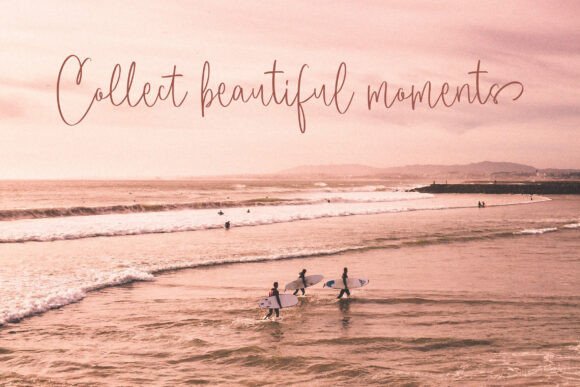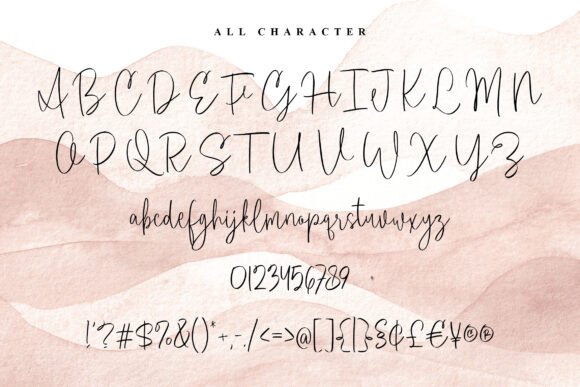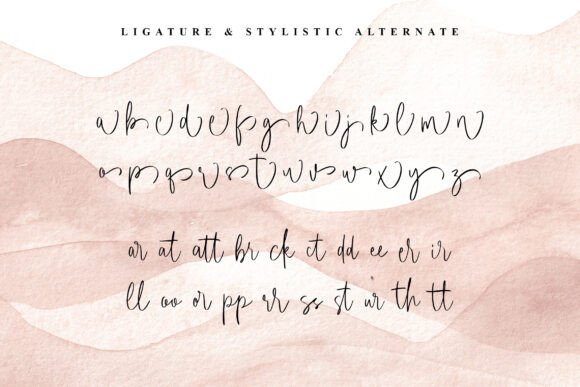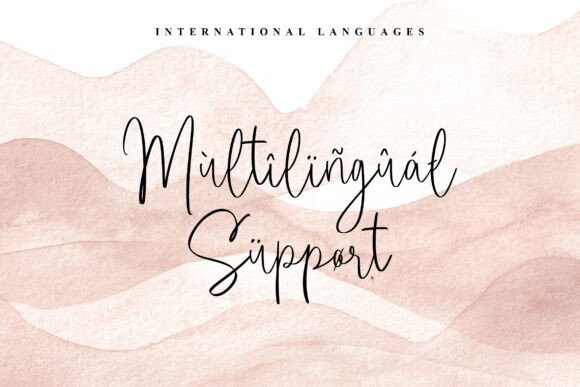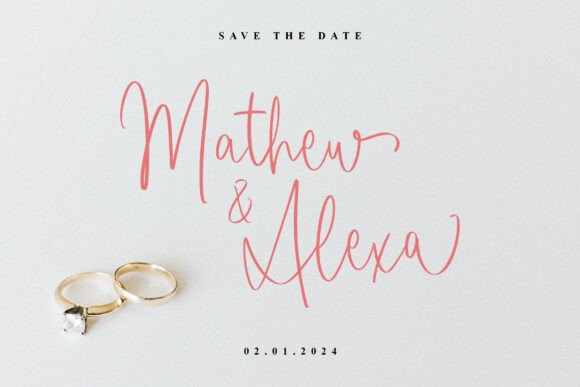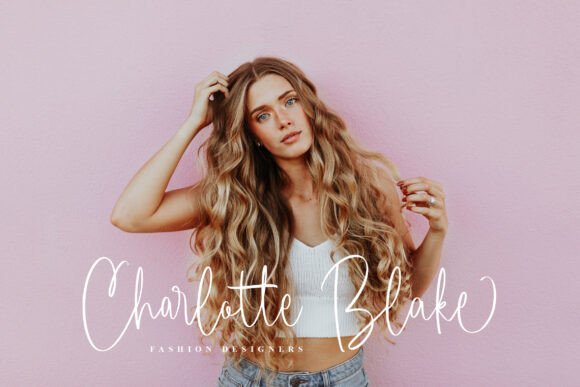
Introduction to Forhampton Font
Introducing Forhampton, the epitome of authentic, handwritten font elegance.
Crafted with a distinct brush style, Forhampton takes your designs to a whole new level, offering a tangible touch of natural, handwritten beauty To ensure a seamless design experience, Forhampton is well-equipped with ligatures and alternates, and impressively supports 68++ multilingual options.
Key Features of Forhampton Font
Why Choose Forhampton Font?
Forhampton Font offers exceptional quality and versatility, making it a valuable addition to your design toolkit. Whether you’re creating for personal projects or commercial use, Forhampton Font delivers professional results.